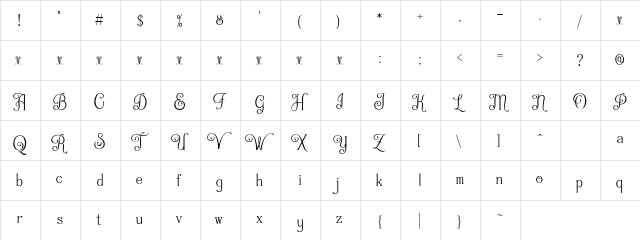
Queensby Regular
Design Context for Queensby Typeface
Queensby is a composed and adaptable typeface that performs quietly and consistently across a wide range of design contexts.